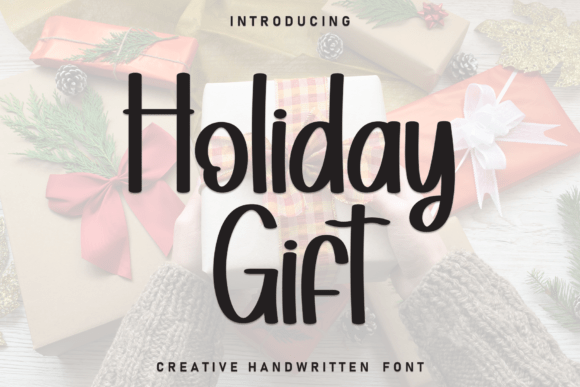
Deck the Halls with Holiday Cheer: Introducing the Holiday Gift Font
As the snowflakes gently fall and the fireplace crackles to life, there’s something magical about the holiday season that inspires creativity. Whether you’re crafting handmade gifts, designing festive event invitations, or simply wanting to add a touch of warmth to your digital communications, the right typography can make all the difference. For designers looking to infuse their work with the cozy essence of winter, we have just the thing: the Holiday Gift Font.
This charming, tall, and slender handwritten typeface is perfectly suited for seasonal branding, high-end gift tags, and festive event signage. Its unique blend of modern minimalism and rustic warmth makes it an invaluable asset for designers seeking to elevate their holiday designs. By incorporating the Holiday Gift Font into your next project, you’ll be able to add a touch of artisanal craft to every pixel, setting your work apart from the rest.
Holiday Gift Font Key Features
- Unique Characteristics: Holiday Gift Font features a unique blend of festive and elegant elements, making it perfect for holiday-themed designs, gift cards, and packaging.
- Font Style: Holiday Gift Font comes in a range of font styles, including regular, bold, italic, and bold-italic, giving designers the flexibility to create a wide range of designs.
Holiday Gift Font Review
As a designer, I was excited to dive into the Holiday Gift Font. Upon initial inspection, I noticed that it has a certain ✨ festive charm to it, perfect for any holiday-themed project. The font is playful, fun, and captures the essence of the season. It’s great for creating eye-catching headings and titles, adding a pop of personality to any design.
However, there are some limitations to consider ⚠️. The font’s legibility can be a concern, particularly at smaller font sizes. It may be difficult to read for some users, which could impact the overall user experience. Additionally, the font’s consistency can be inconsistent, with some letters looking more ornate than others. This can make it challenging to achieve a cohesive design.
- Festive and playful design
- Perfect for holiday-themed projects
- Captures the essence of the season
- Legibility can be a concern at smaller font sizes
- Consistency can be inconsistent
- May be challenging to achieve a cohesive design
Overall, I think the Holiday Gift Font is a fun and festive addition to any designer’s toolkit. While it may have its limitations, it’s perfect for creating eye-catching and playful designs that capture the spirit of the holiday season.
Tips for Getting the Most Out of it
Use the Holiday Gift Font in conjunction with festive colors and graphics to create eye-catching holiday designs.
Experiment with different font sizes and styles to add visual interest to your designs.
The Holiday Gift Font is perfect for:
- Holiday cards and invitations
- Gift tags and wrapping paper
- Marketing materials and advertisements
- Social media graphics and posts
Alternatives to “Holiday Gift Font” for Designers
Great Vibes is a beautiful, elegant script font that is perfect for creating a festive atmosphere. It’s ideal for use in Christmas or New Year’s Eve-themed designs, invitations, and social media graphics. Compared to Holiday Gift Font, Great Vibes has a more refined and sophisticated look, making it suitable for more formal events.